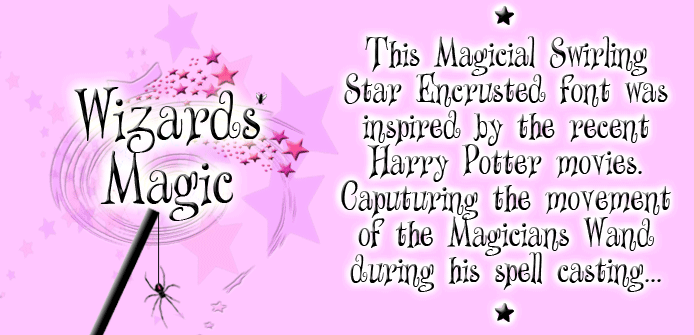
After reading J K Rowling's magical Harry Potter books I wanted to create a swirling star encrusted font that would capture the imagination. For the fully kerned OTF embeddable commercial version of this font please visit my Etsy Store @ http://etsy.me/2eGKw3J also check out my other magical typeface @ http://etsy.me/2ecMXYh |